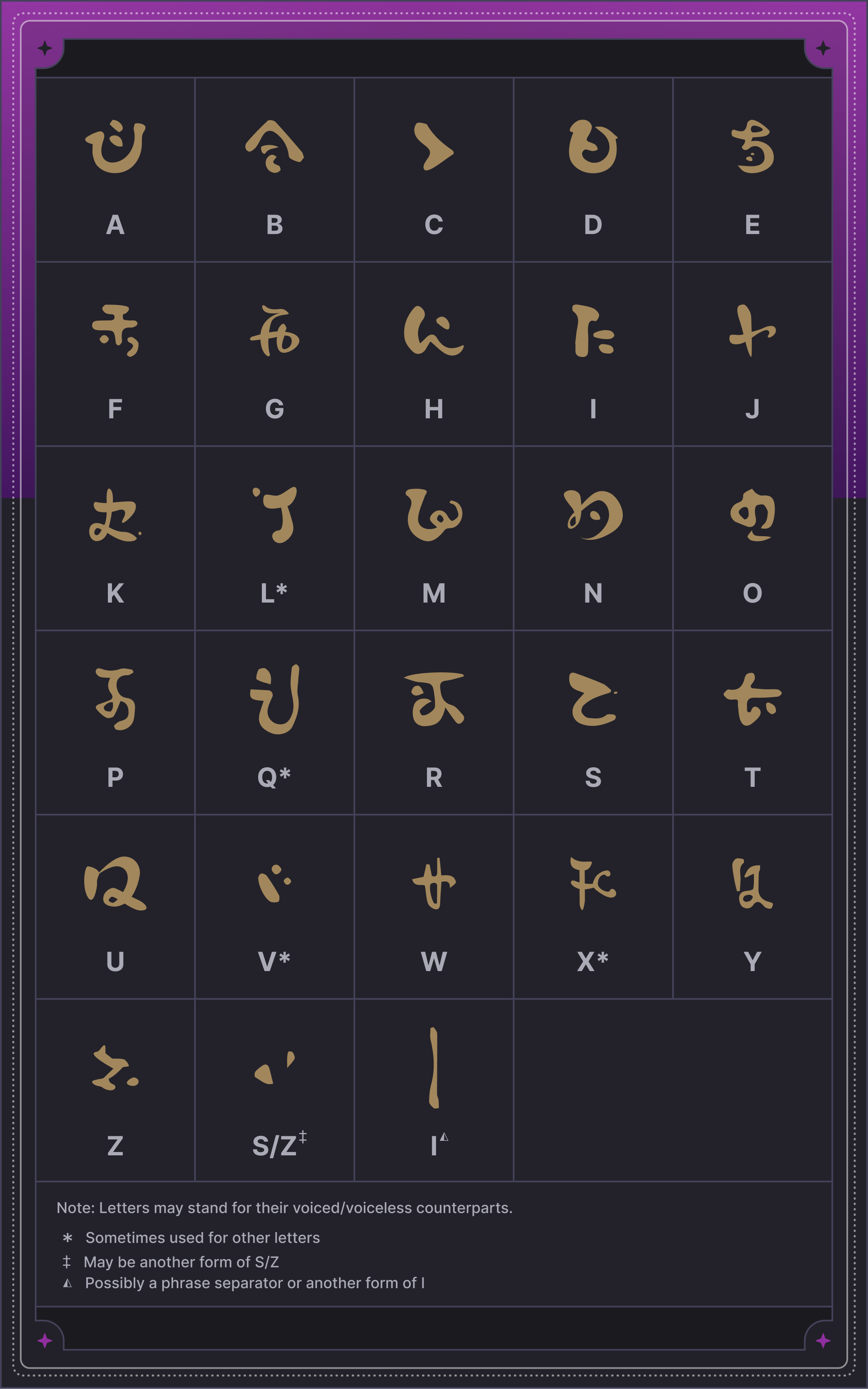
Genshin Impact Font
Genshin Impact Font - Web the genshin impact font is primarily used to display text within the game, such as character names, dialogue, item descriptions, and menu options. Hit the generate button and your logo/image is created and ready to download. It is also used in. Genshin impact font generator & download is available free at fontbolt. Web genshin impact uses various typefaces and fonts throughout the game and official media. Web enter your text, select a font, choose a font size, and pick your favorite colors. Try our text generator and create cool graphics for genshin impact font, then you can. Mihoyo made some modifications to give these fonts a japanese text style. Web original genshin impact font is inspired from the hywenhei chinese font. This page serves to aggregate and elaborate on specific typefaces in use throughout.
This page serves to aggregate and elaborate on specific typefaces in use throughout. Genshin impact font generator & download is available free at fontbolt. Try our text generator and create cool graphics for genshin impact font, then you can. Web genshin impact uses various typefaces and fonts throughout the game and official media. It is also used in. Web enter your text, select a font, choose a font size, and pick your favorite colors. Mihoyo made some modifications to give these fonts a japanese text style. Hit the generate button and your logo/image is created and ready to download. Web the genshin impact font is primarily used to display text within the game, such as character names, dialogue, item descriptions, and menu options. Web original genshin impact font is inspired from the hywenhei chinese font.
Web original genshin impact font is inspired from the hywenhei chinese font. Web genshin impact uses various typefaces and fonts throughout the game and official media. Mihoyo made some modifications to give these fonts a japanese text style. It is also used in. Web the genshin impact font is primarily used to display text within the game, such as character names, dialogue, item descriptions, and menu options. Hit the generate button and your logo/image is created and ready to download. Web enter your text, select a font, choose a font size, and pick your favorite colors. This page serves to aggregate and elaborate on specific typefaces in use throughout. Try our text generator and create cool graphics for genshin impact font, then you can. Genshin impact font generator & download is available free at fontbolt.
This page serves to aggregate and elaborate on specific typefaces in use throughout. Web the genshin impact font is primarily used to display text within the game, such as character names, dialogue, item descriptions, and menu options. Web genshin impact uses various typefaces and fonts throughout the game and official media. Genshin impact font generator & download is available free.
This page serves to aggregate and elaborate on specific typefaces in use throughout. Mihoyo made some modifications to give these fonts a japanese text style. Web the genshin impact font is primarily used to display text within the game, such as character names, dialogue, item descriptions, and menu options. Web enter your text, select a font, choose a font size,.
This page serves to aggregate and elaborate on specific typefaces in use throughout. Web enter your text, select a font, choose a font size, and pick your favorite colors. Web original genshin impact font is inspired from the hywenhei chinese font. Genshin impact font generator & download is available free at fontbolt. It is also used in.
Mihoyo made some modifications to give these fonts a japanese text style. Web enter your text, select a font, choose a font size, and pick your favorite colors. This page serves to aggregate and elaborate on specific typefaces in use throughout. Try our text generator and create cool graphics for genshin impact font, then you can. Web original genshin impact.
Web the genshin impact font is primarily used to display text within the game, such as character names, dialogue, item descriptions, and menu options. Web genshin impact uses various typefaces and fonts throughout the game and official media. Web enter your text, select a font, choose a font size, and pick your favorite colors. Web original genshin impact font is.
Web the genshin impact font is primarily used to display text within the game, such as character names, dialogue, item descriptions, and menu options. Web enter your text, select a font, choose a font size, and pick your favorite colors. Genshin impact font generator & download is available free at fontbolt. This page serves to aggregate and elaborate on specific.
Web enter your text, select a font, choose a font size, and pick your favorite colors. Web original genshin impact font is inspired from the hywenhei chinese font. Mihoyo made some modifications to give these fonts a japanese text style. This page serves to aggregate and elaborate on specific typefaces in use throughout. Web the genshin impact font is primarily.
Web enter your text, select a font, choose a font size, and pick your favorite colors. Try our text generator and create cool graphics for genshin impact font, then you can. Genshin impact font generator & download is available free at fontbolt. Web original genshin impact font is inspired from the hywenhei chinese font. Web the genshin impact font is.
Web the genshin impact font is primarily used to display text within the game, such as character names, dialogue, item descriptions, and menu options. It is also used in. Mihoyo made some modifications to give these fonts a japanese text style. Web original genshin impact font is inspired from the hywenhei chinese font. Hit the generate button and your logo/image.
Web original genshin impact font is inspired from the hywenhei chinese font. Hit the generate button and your logo/image is created and ready to download. Try our text generator and create cool graphics for genshin impact font, then you can. Web the genshin impact font is primarily used to display text within the game, such as character names, dialogue, item descriptions, and menu options.